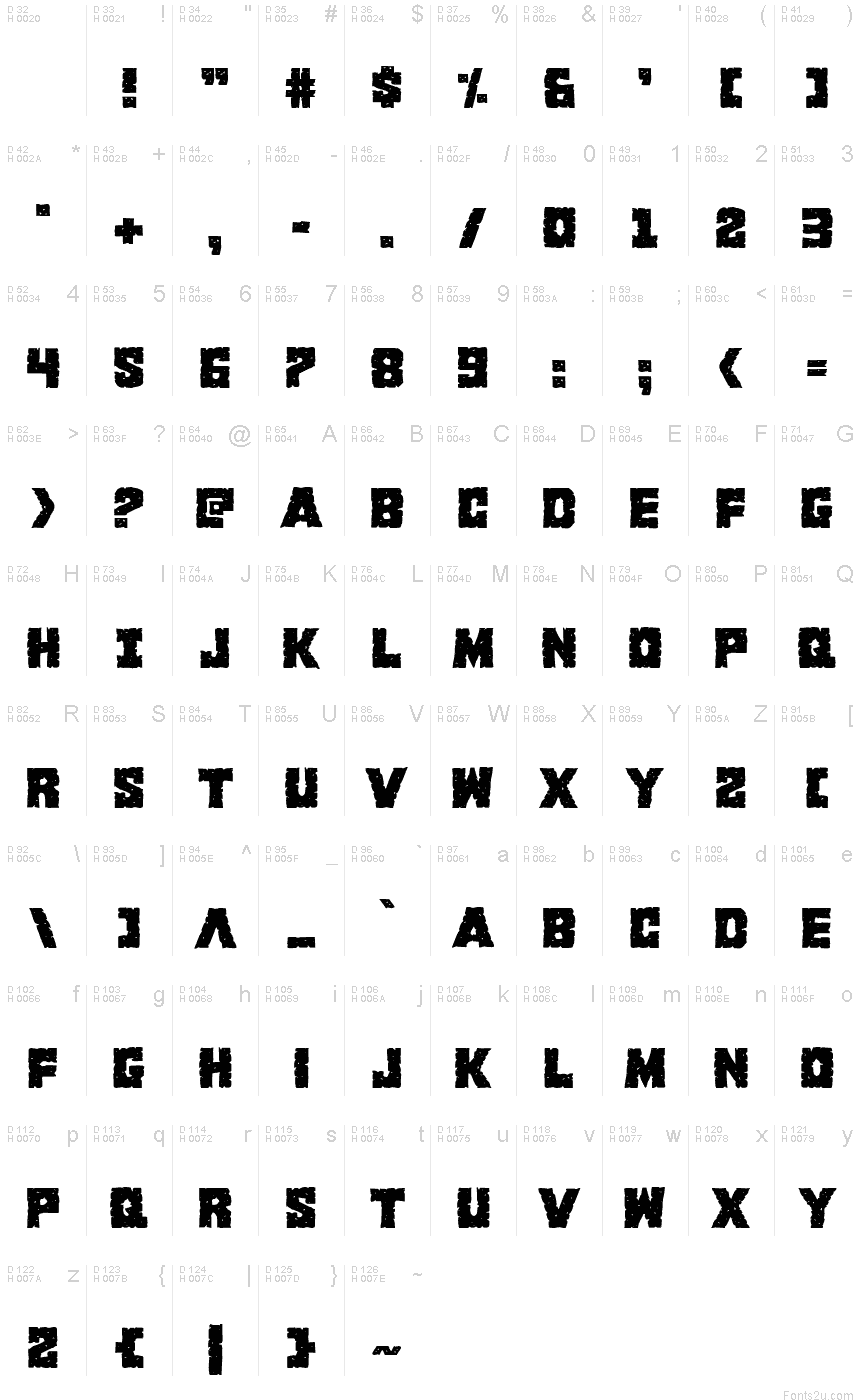
King Commando by Daniel Zadorozny of Iconian Fonts is a free eroded display font with massive, tightly packed capitals, a low, wide stance, and the blunt force of military poster lettering. Its uneven outer edges, scattered chips, and rough internal cuts make the broad shapes look stamped, battered, and repeatedly handled rather than neatly printed, with abrupt notches that suggest damage from old, worn printing plates.
Action-game title cards are its most convincing role. The same hard-worn surface also suits combat-sports merchandise, survival-themed packaging, and concert posters, especially for audiences drawn to heavy music, tactical imagery, or rough arcade aesthetics.
King Commando